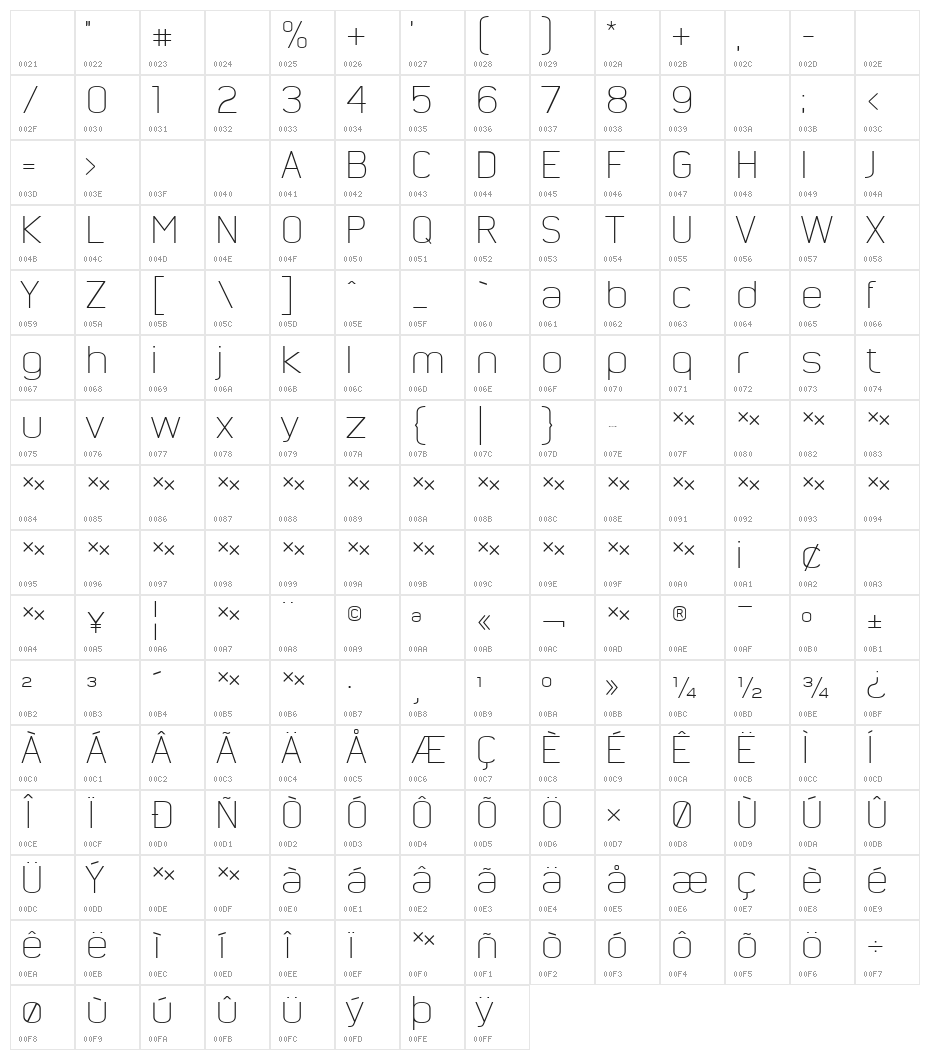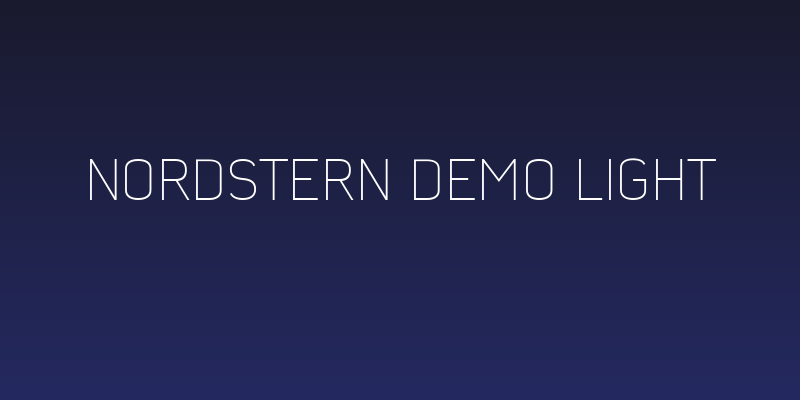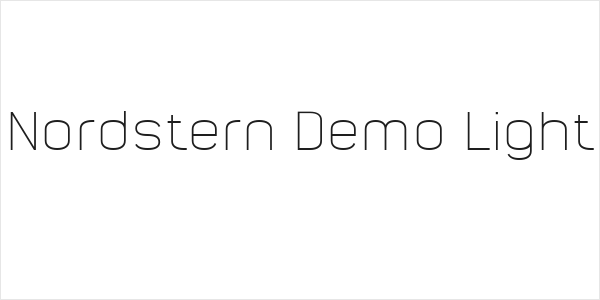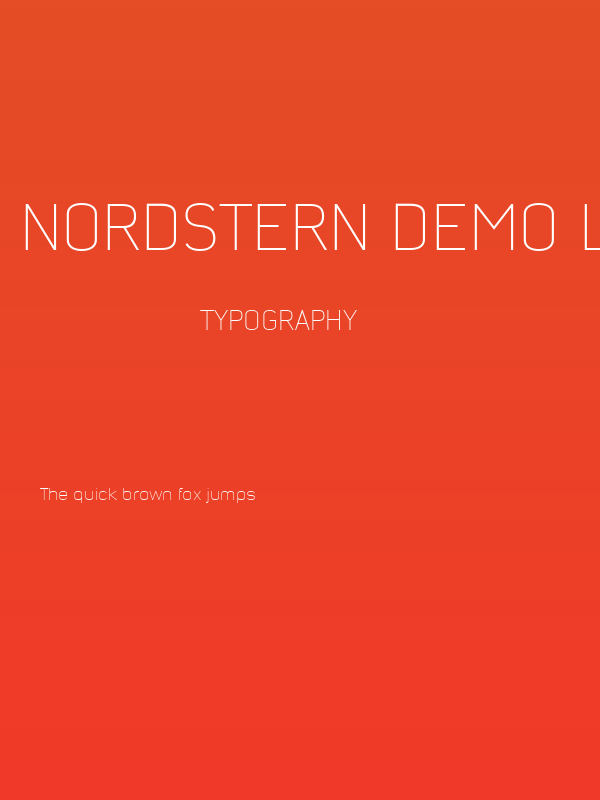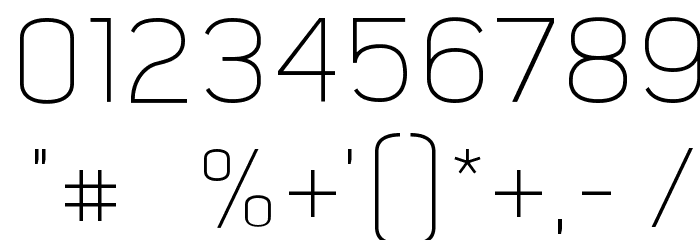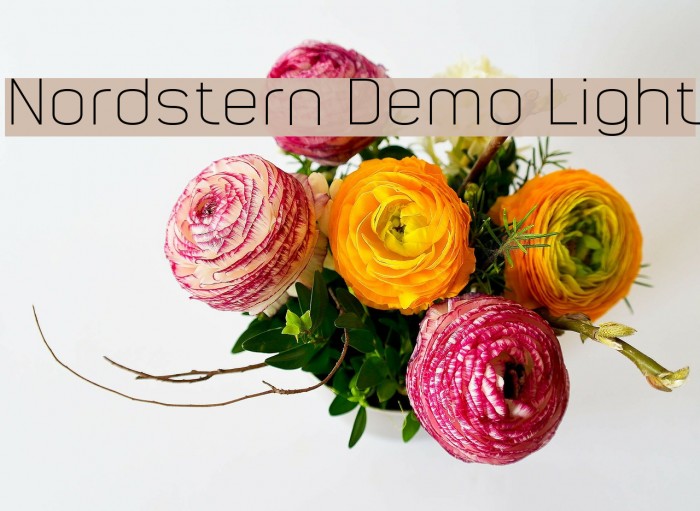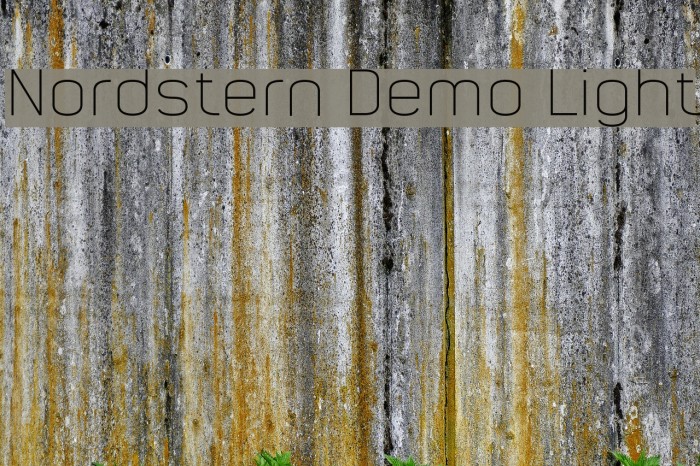
Nordstern Demo Light Font
Nordstern Demo Light Description
This font features a clean, geometric design with a modern aesthetic. The characters are constructed with uniform stroke widths, giving it a sleek and minimalistic appearance. The uppercase and lowercase letters maintain a consistent height and width, contributing to a harmonious and balanced look. The numerals are clear and legible, matching the style of the alphabetic characters. Special characters are designed with the same attention to detail, ensuring they integrate seamlessly with the rest of the font. Overall, this font exudes a sense of precision and clarity, making it suitable for a variety of applications where a contemporary and professional look is desired.
| Use Case | Headlines, Body text, Logos |
| Proposed Projects | Ideal for branding, corporate design, digital interfaces, and modern print media. |